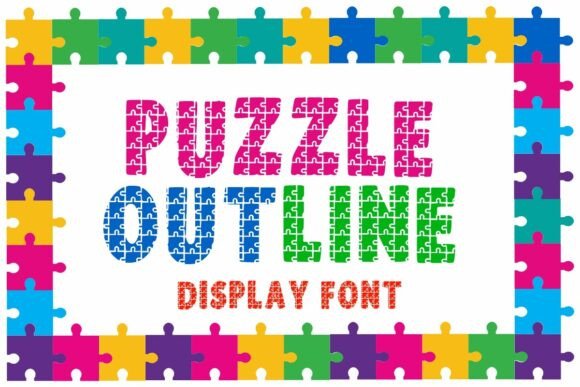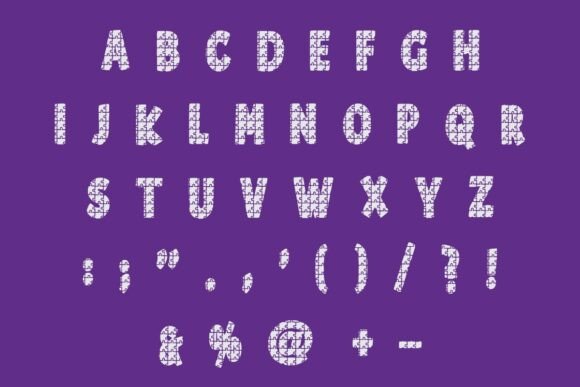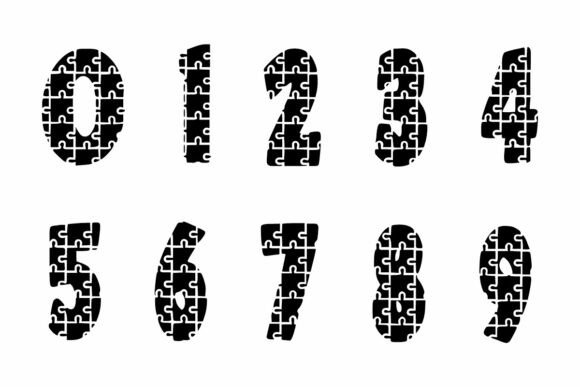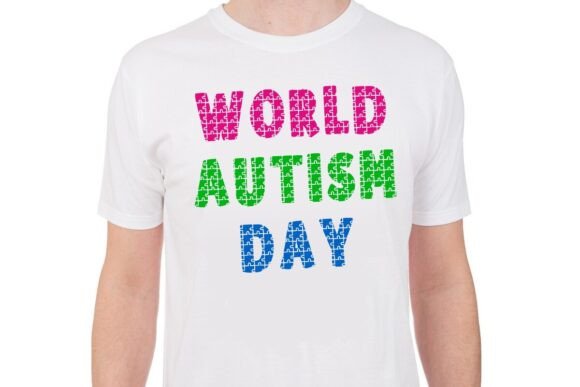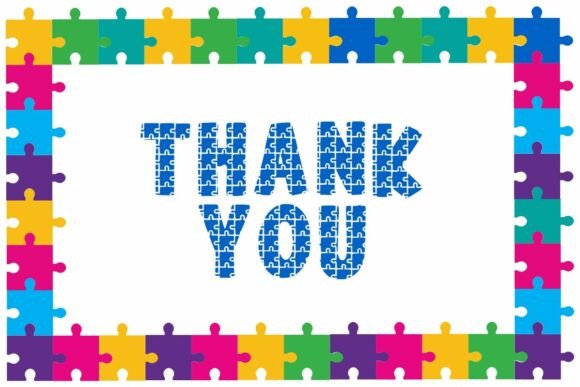
The Autism Day Font: A Fun and Quirky Addition to Your Design Toolbox
I’ll never forget the time I was working on a project for a client’s Autism Awareness campaign. I had a clear vision of what I wanted to create, but somehow, the design just wasn’t coming together. The issue? I couldn’t find a font that captured the playful, yet meaningful spirit of the campaign. That was until I stumbled upon the Autism Day font. It’s been a game-changer ever since! 🎉
- ✨ Unique puzzle outline design that adds a touch of whimsy to any project
- ✅ Highly versatile and suitable for a wide range of applications, from banners and flyers to t-shirts and logos
- 💡 Fun and relaxed vibe that’s perfect for creative projects that require a bit of personality
While the Autism Day font is an excellent addition to any design toolbox, there are a few things to keep in mind:
- ⚠️ Some of the more intricate details may not render well at very small font sizes
- 🤔 Limited availability of stylistic alternates, which may limit its use in certain design contexts
The Designer Inspiration Behind the Autism Day Font
The Autism Day font was designed with the goal of creating a fun, yet meaningful font that could be used to raise awareness for Autism. The designer, inspired by the puzzle piece symbol often used in Autism advocacy, created a font that not only captures the playful spirit of the symbol but also conveys a sense of approachability and friendliness.
Q: What is the Autism Day font?
A: The Autism Day font is a fun and quirky font designed specifically for creative projects that require a relaxed touch. It features a unique puzzle outline design that’s perfect for Autism awareness campaigns and other projects that require a playful yet meaningful font.
Q: What can I use the Autism Day font for?
A: The Autism Day font is highly versatile and can be used for a wide range of applications, including banners, flyers, t-shirts, logos, and more.